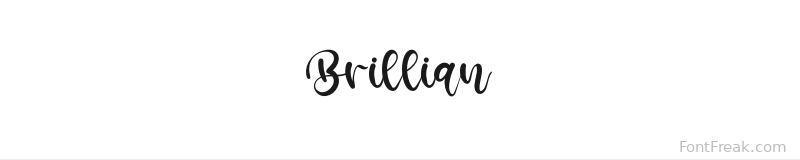
Brillian
Brillian Italic
The Brillian font, designed by Kong Font in 2020, is a stunning script typeface that captures the essence of elegance and creativity. This freeware font features a fluid, handwritten style that exudes warmth and personality, making it an ideal choice for a variety of design projects. Its graceful curves and flowing lines give it a distinctive character, while the moderate stroke weight ensures readability without sacrificing style. The visual contrast between thick and thin strokes adds depth, enhancing its overall appeal.
Brillian’s charming aesthetic makes it suitable for several specific use cases. It shines in wedding invitations, where the romantic flourishes can complement themes of love and celebration. Additionally, its unique style makes it a fantastic choice for branding materials, such as logos for cafes or boutiques, where a personal touch can attract customers. Movie posters can also benefit from its expressive nature, drawing attention and conveying a sense of excitement. Furthermore, Brillian works beautifully in restaurant menus, adding a touch of sophistication that enhances the dining experience.
The target audience for the Brillian font includes graphic designers, small business owners, and content creators looking to add a personal flair to their projects. Its versatility ensures that it can be adapted to various branding needs, making it a valuable addition to any designer's toolkit.
What truly sets the Brillian font apart is its ability to blend elegance with approachability. It stands out not just for its aesthetic appeal, but also for its capacity to resonate with audiences on a personal level. For those in search of a unique typeface that embodies creativity and charm, the Brillian font free download is an excellent choice.